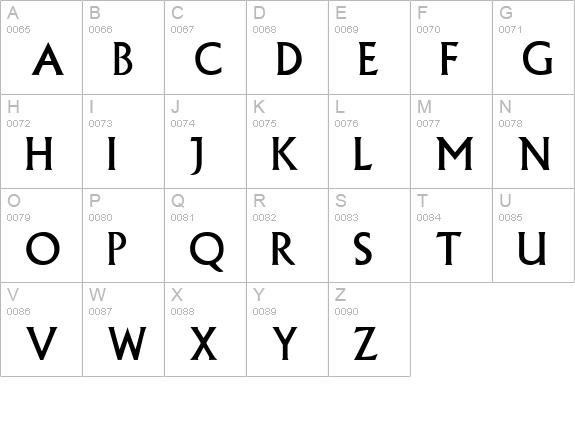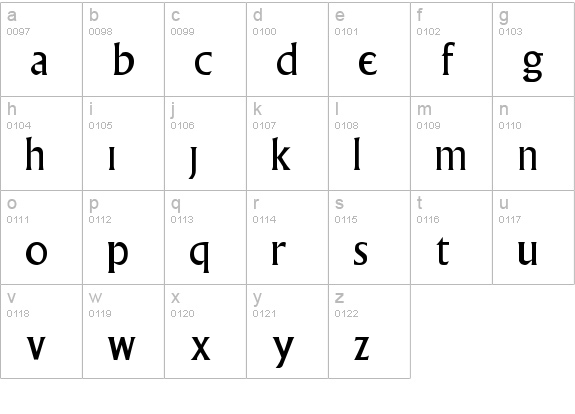
Village font is a stunning typeface that exudes the charm and warmth of a quaint countryside village. Its unique design captures the essence of rustic simplicity, making it perfect for projects that require a touch of nostalgia and a dash of authenticity. With its hand-drawn letterforms and playful strokes, Village font adds a delightful and organic feel to any creative endeavor. This versatile font comes in a wide range of weights and styles, allowing you to effortlessly adapt it to various design contexts. Whether you're designing a vintage-inspired logo, crafting a whimsical invitation, or adding a touch of rustic elegance to your website, Village font has got you covered. Its clean lines and smooth curves make it legible and easy on the eyes, ensuring optimal readability across different mediums. One of the best parts about Village font is that it is freely available to download at FontsMarket.com. This means that you can enhance your designs with this beautiful typeface without any financial constraints. Whether you're a professional designer or a hobbyist, Village font offers you the opportunity to add a touch of rustic charm to your projects without breaking the bank. So why wait? Download Village font today and let its timeless appeal transport your audience to the idyllic streets of a picturesque village. Unleash your creativity and infuse your designs with the warm and inviting atmosphere that Village font effortlessly brings. Explore the endless possibilities and create designs that evoke feelings of nostalgia, simplicity, and beauty. With Village font, the charm of the countryside is just a click away.